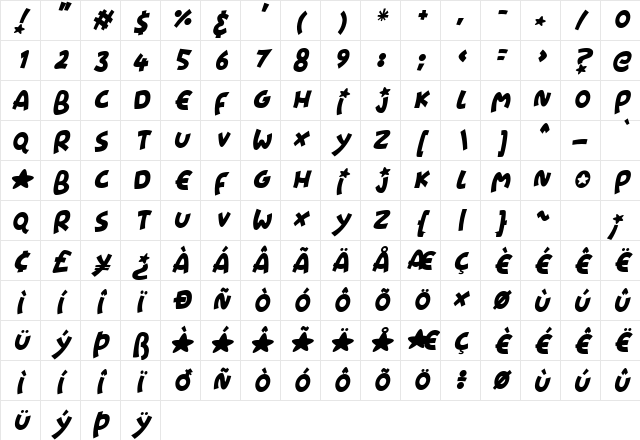
Starshines Italic
Design Context for Starshines
Starshines is a composed and adaptable typeface that performs quietly and consistently across a wide range of design contexts. The slanted form adds forward momentum and visual energy.
Pro Tip: Use Starshines for emphasis, pull quotes, and subheadings where its slanted energy can add rhythm to the layout.